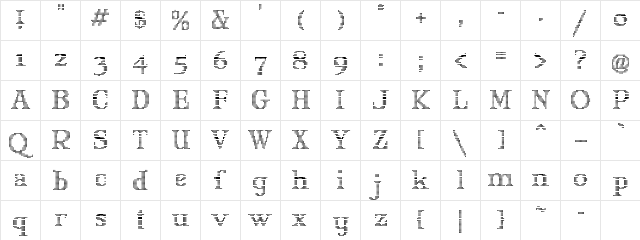
Mary Jane Olyff Regular
| Designer | Apostrophe |
Design Context for Mary Jane Olyff Typeface
Mary Jane Olyff takes a measured approach to typography — its balanced proportions and neutral character make it a reliable workhorse for both digital and print work.